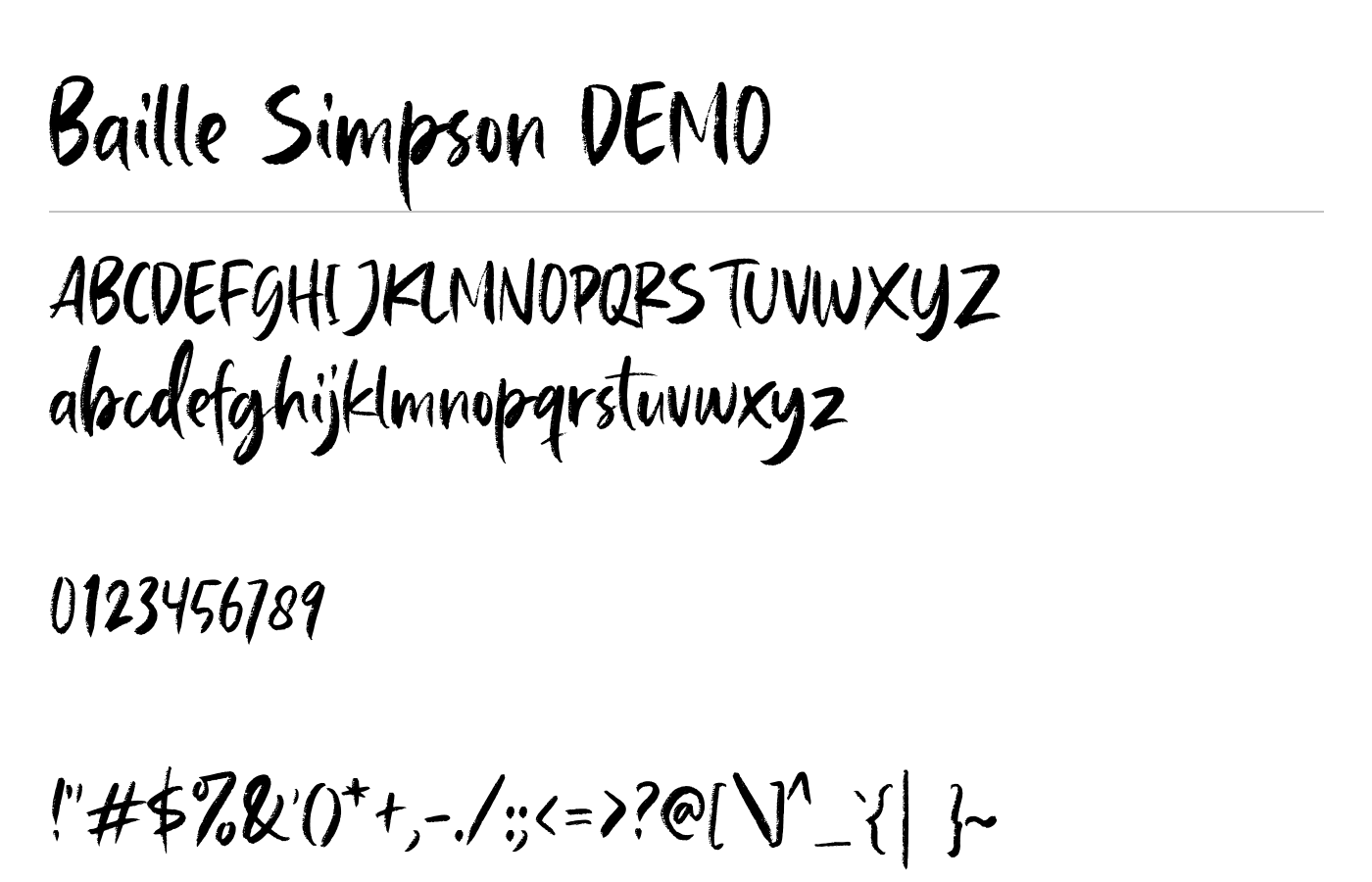
Baille Simpson DEMO is a casual, hand-drawn script font that captures a lively and expressive brushstroke style. Its irregular, energetic letterforms with varying stroke thicknesses give it a playful yet confident personality, making it ideal for creative projects, playful branding, and informal headlines where a natural, handcrafted feel is desired. This font works well for posters, packaging, and digital content that aims to convey warmth and approachability.
Baille Simpson DEMO Font
About Baille Simpson DEMO Font
| Font family | Baille Simpson DEMO Font |
| Designer | Sarid Ezra |